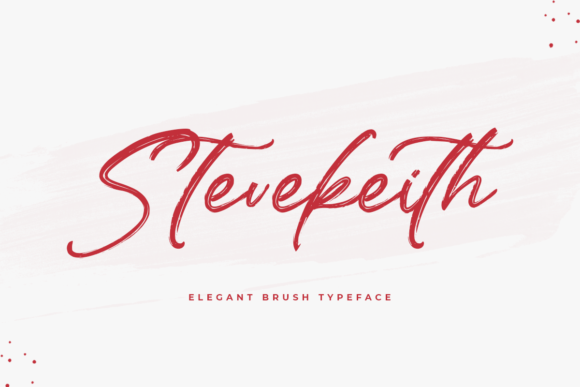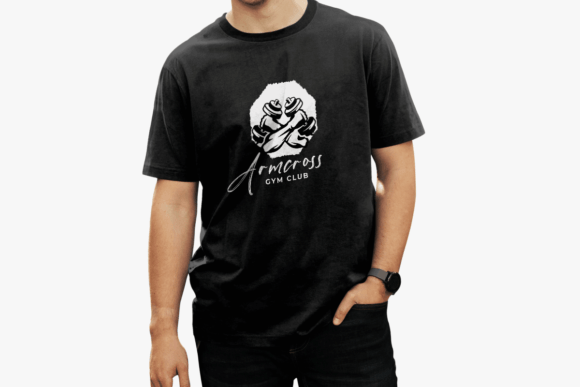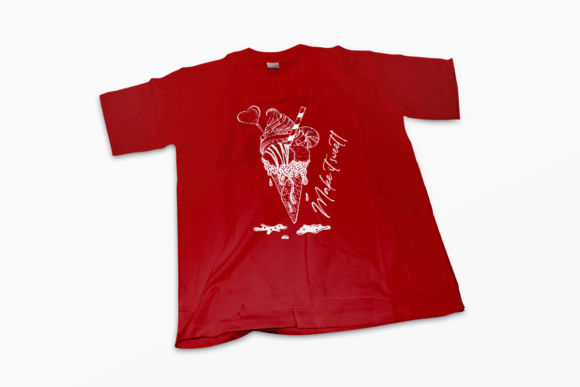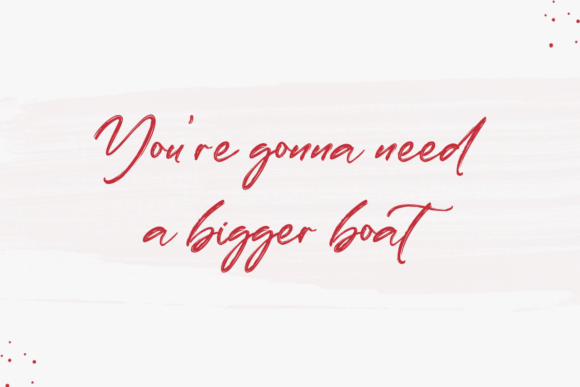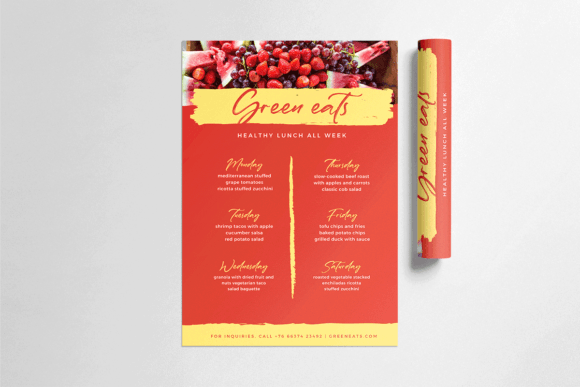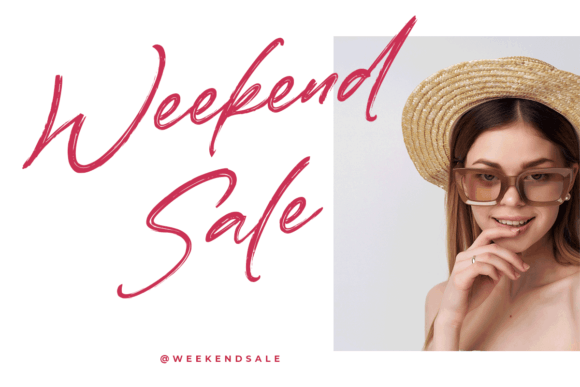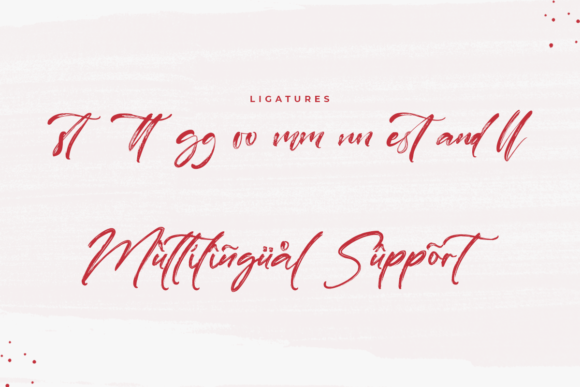
Stevekeith Font
About Stevekeith Font
Stevekeith, a modern brushed script font with a swash, combines simplicity with powerful visual effects to create a versatile typeface. Ideal for a wide range of applications, this font is perfect for logos, branding, posters, social media graphics, typography, t-shirt designs, quotes, greeting cards, and more. Its brushed script style adds a contemporary and dynamic flair to your designs.
The simplicity of Stevekeith is complemented by its impactful visual elements, making it suitable for a variety of creative projects. Whether you’re aiming for a bold logo or a stylish poster, this font stands out with its modern and expressive strokes.
The inclusion of a swash in Stevekeith further enhances its design possibilities, allowing for additional creative freedom. Swashes can add decorative elements to your text, giving it a more personalized and unique touch.
Stevekeith’s PUA encoding feature ensures easy access to a wide array of amazing glyphs and ligatures. This flexibility allows you to customize and experiment with different design elements, making it a valuable tool for your creative endeavors.
Incorporate Stevekeith into your design toolkit to witness how it brings a modern and dynamic energy to your projects. Whether you’re designing for print or digital media, Stevekeith is a font that delivers simplicity with a powerful visual impact, making it a standout choice for various design applications.